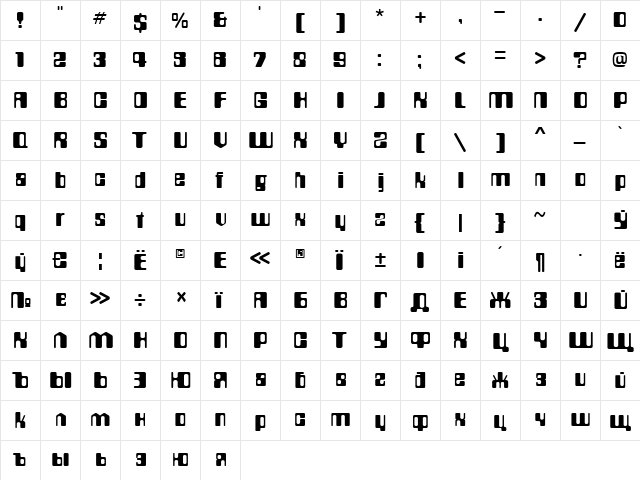
Countdown Normal
Design Context for Countdown Typeface
Countdown is a composed and adaptable typeface that performs quietly and consistently across a wide range of design contexts.